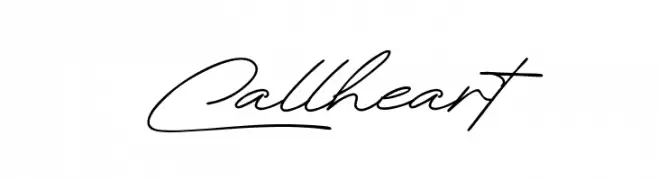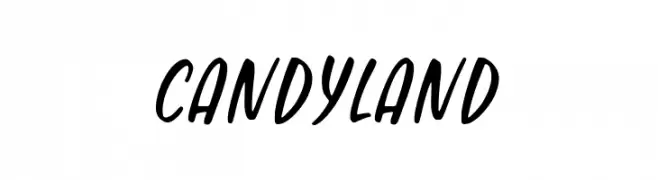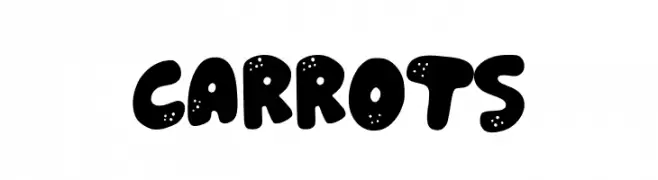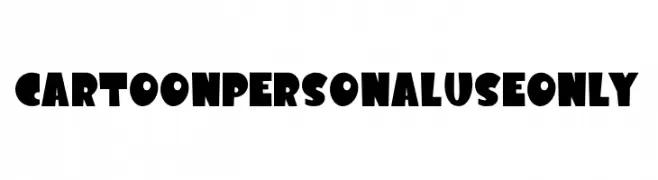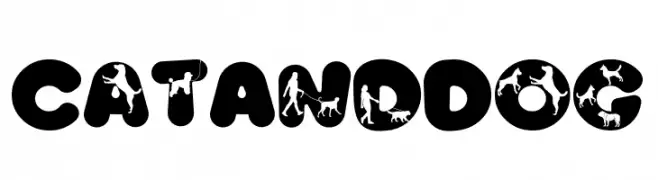
A bold, high-contrast font with dramatic curves and sharp edges.
A bold, playful font with thick, rounded strokes and a bubbly appearance.
A bold, modern font with a strong, condensed design ideal for impactful headlines.
A modern, geometric font with tall, narrow characters and clean lines.
A dynamic and elegant script font with fluid strokes and a modern yet timeless appeal.
A fluid and elegant handwritten font with a modern touch.
A playful and energetic handwritten font with fluid strokes.
A modern serif font with sharp, angular serifs and clean lines.
A playful, bold font with rounded, bubble-like characters.